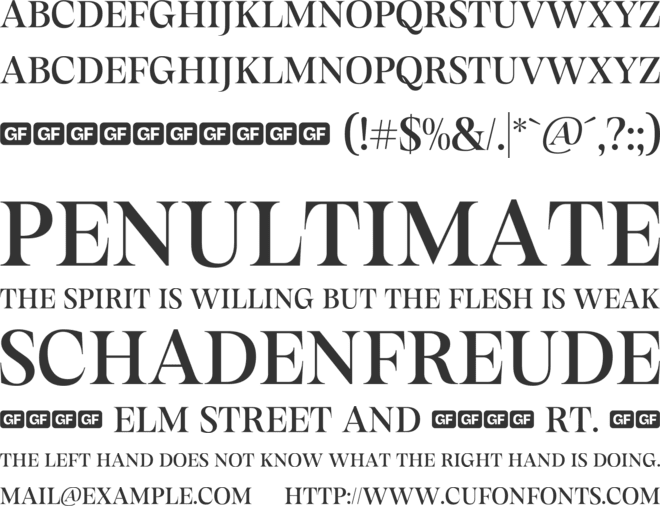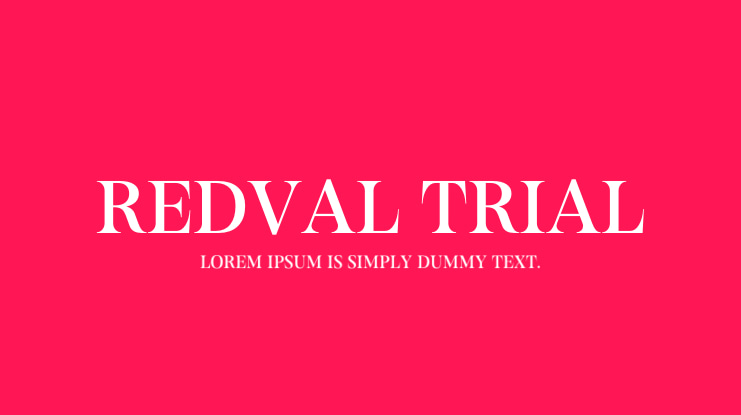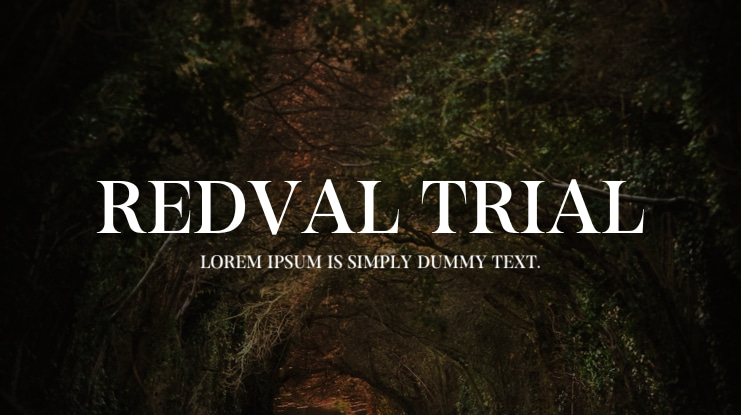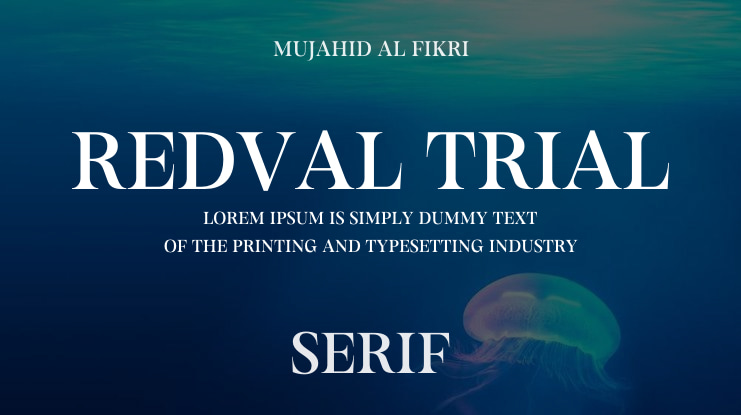
Redval is a vintage-inspired font with sharp serif alternates that infuse a strong sense of character. It's perfect for brand design, logotypes, posters, book covers, and short quotes.